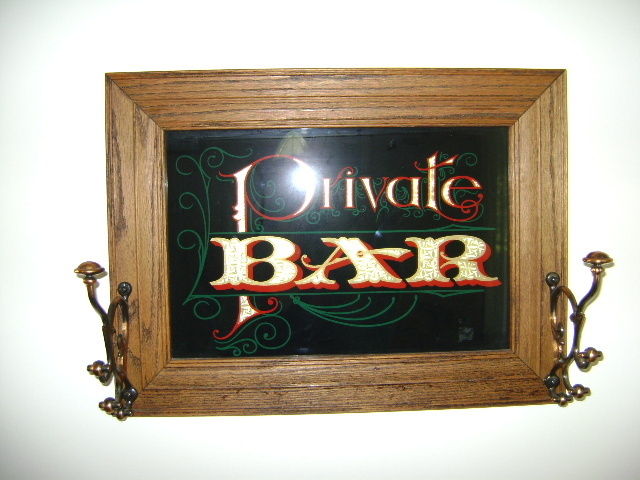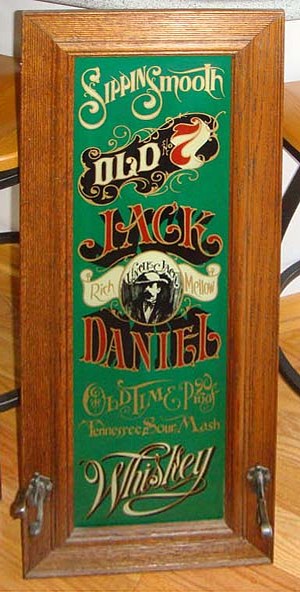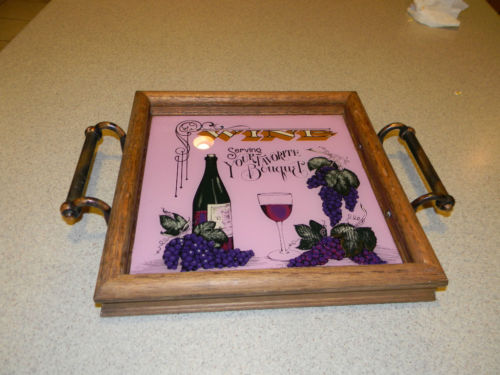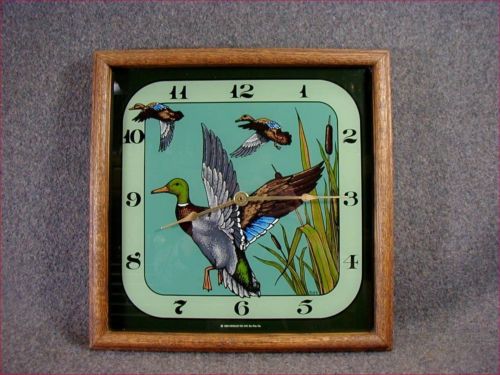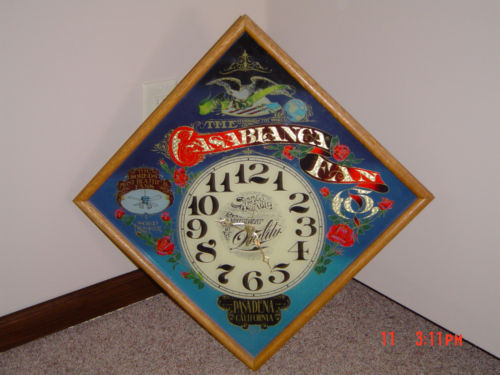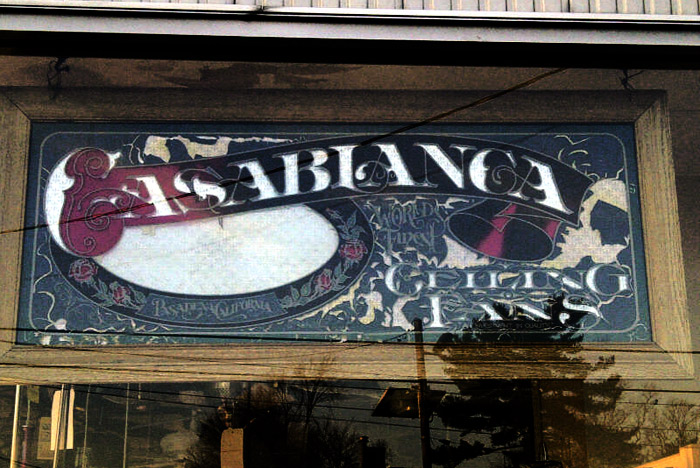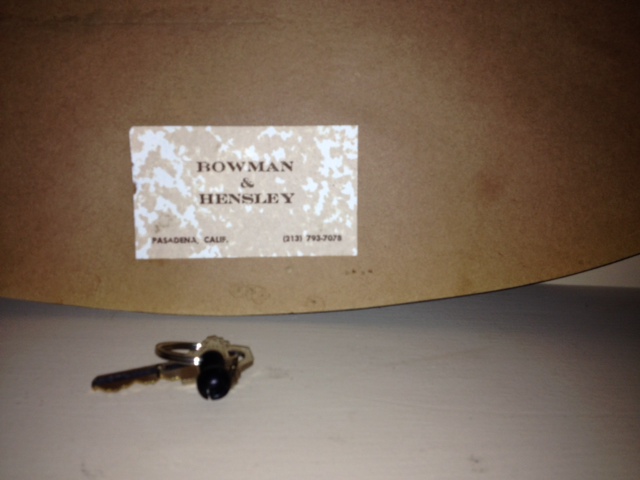
Someone just listed this one from The Hensley Co on e-bay.......120799490026.......first time I've seen it in this size,,,,,,,,,,,,,,,
I bought this Private Bar sign........ nobody bid on it for months on e-bay..........I will give it a good home.........
Definitely looks like a Hensley. If so the seller is passing it off as an antique.
Seems there's another Hensley sign up on ebay....
Not hard to spot, if ya know what to look for...
I love this stuff.
Is anyone making these, these days (as their own originals
This remake of The Hensley Co."Colt sign" seems to be all over the place. It's even seen in the pawn shop in the movie "Pulp Fiction"..............they always sell.........this one is on e-bay now.
Picked up this little glass tray from The Hensley Co. a couple of weeks ago...........
I really like these .
What I still don't understand is how they come to be worth less than the total cost of the wood, mirror, paint.leaf and time to make.
For example, becauase of your link I have looked at finished items selling for less than you can buy a blank mirror for here in the UK.
Here is my version of the Colt 45 Hensley sign
I don't understand why they are sometimes overlooked.........of course the pictures really don't do them justice...........one thing for sure, if it wasn't for the internet it would be impossible to find them..........I have an original "Colt 45 Sign" by The Hensley Co. in the 24" x 17" size. I tried to put up a picture, but it's too big and my photoshop is dead.................I really like your Colt sign Rod...............beautiful work!
My experience with these tells me it's a knockoff......I have quite a few, but have yet to find one signed Hensley Co. with the fan in the oval.......this one would be 2' across!.......EBAY #120848816586
The seller says 17" square, so I measured one of mine, the sides are 17"- and it's 24" corner to corner across the 9 and 3...................
I was driving on Rt 27 in Edison NJ and saw this sign in a Fan shop window. I think its one of his signs. Forgive me if I'm wrong. I had to stop and take a picture of it. Its still in the window of the fan shop doing its job, selling fans! It looked about 40"wide x about 16"high. It looked pretty beat up but still had integrety.
Wow, that one has some miles on it- but still makes you look...............such a great design ! The big Casablanca Signs measure 55 1/2" x 24 1/2"...............Casablanca had some re-pops made, but they say California instead of Pasadena under the fan..............that one is the real deal...............
I have the same Coca Cola that my son gave me
it was left in a appartment he was renting in Philly